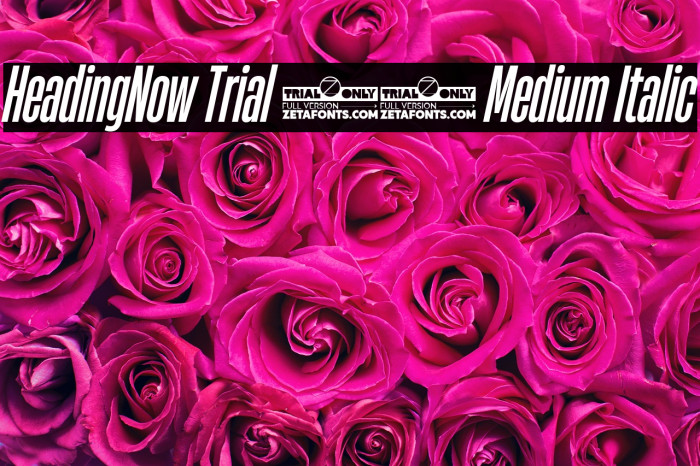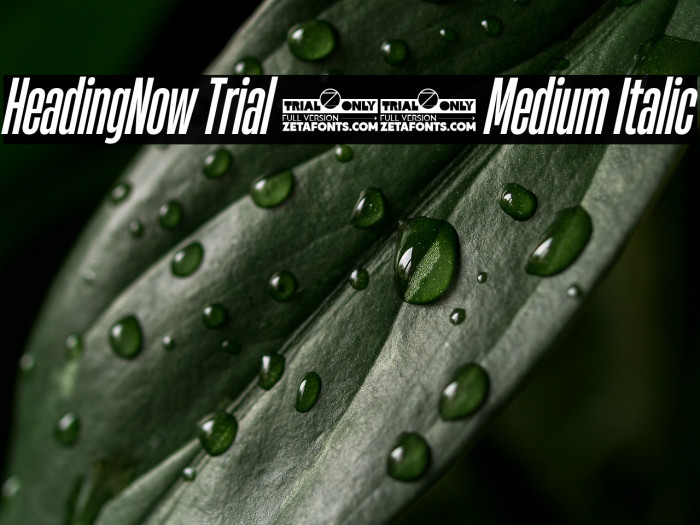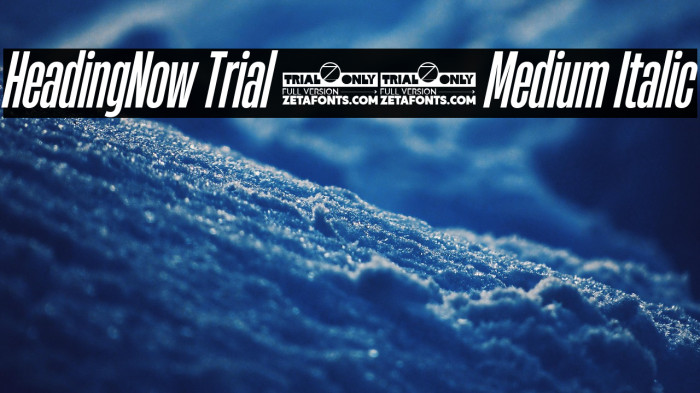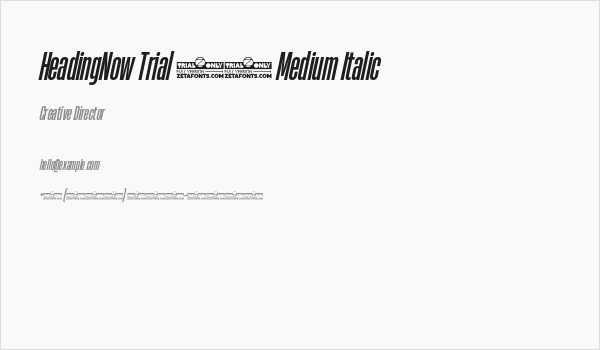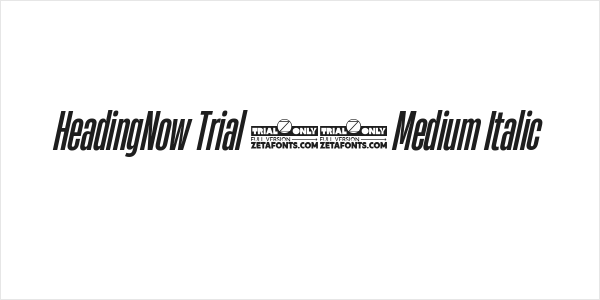
HeadingNow Trial 25 Medium Italic Font
HeadingNow Trial 25 Medium Italic Description
This font features a modern, sleek design with a strong emphasis on verticality and a slight forward slant, giving it an italicized appearance. The characters are bold and condensed, creating a sense of urgency and movement. The uppercase and lowercase letters maintain a consistent style, with clean lines and minimal embellishments. The numerals and special characters are equally bold, ensuring readability and impact. This font is ideal for making a statement, with its high contrast and tight character spacing, making it perfect for headlines and attention-grabbing text.
| Proposed Projects | Ideal for headlines, posters, advertising, and branding projects where a strong, modern presence is needed. |